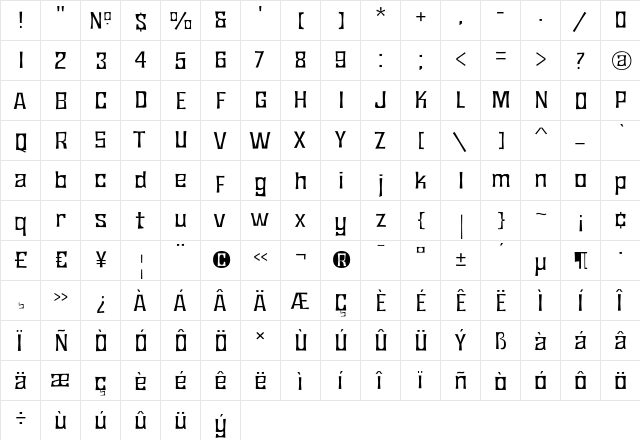
JMH Bronze Fine Regular Font Preview
JMH Bronze Fine Regular
JMH Bronze Fine Regular Font Details
Design Context for JMH Bronze Fine Typeface
JMH Bronze Fine offers clean, dependable letterforms without strong stylistic allegiance, making it a practical choice for designers who need flexibility.